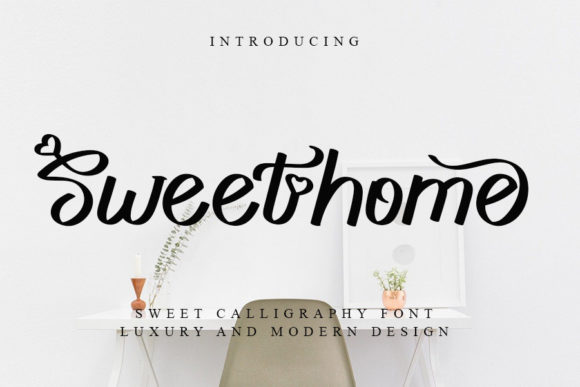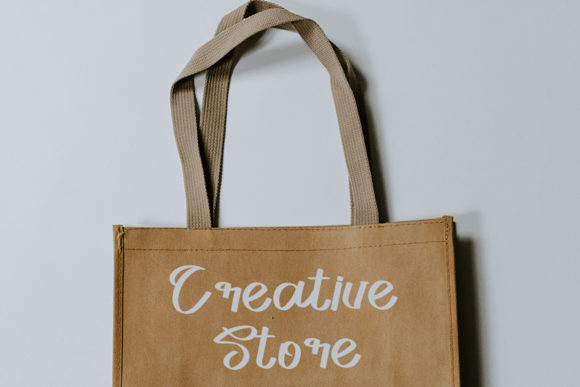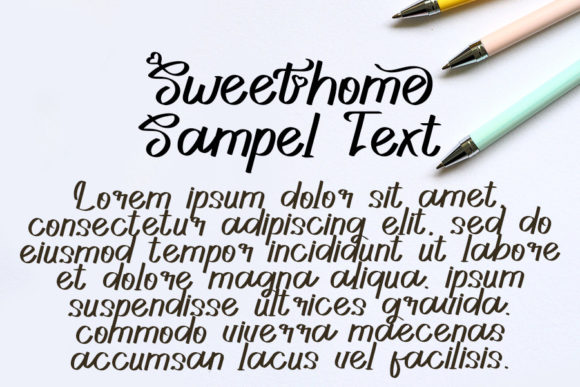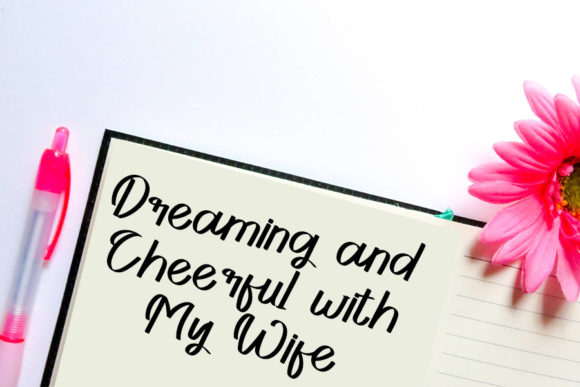
Sweethome Font
About Sweethome Font
Sweethome is a cursive and delicate script font. This font is neatly crafted and highly detailed. Whatever the topic, this font will be a wonderful asset to your font library, as it has the potential to enhance any creation.